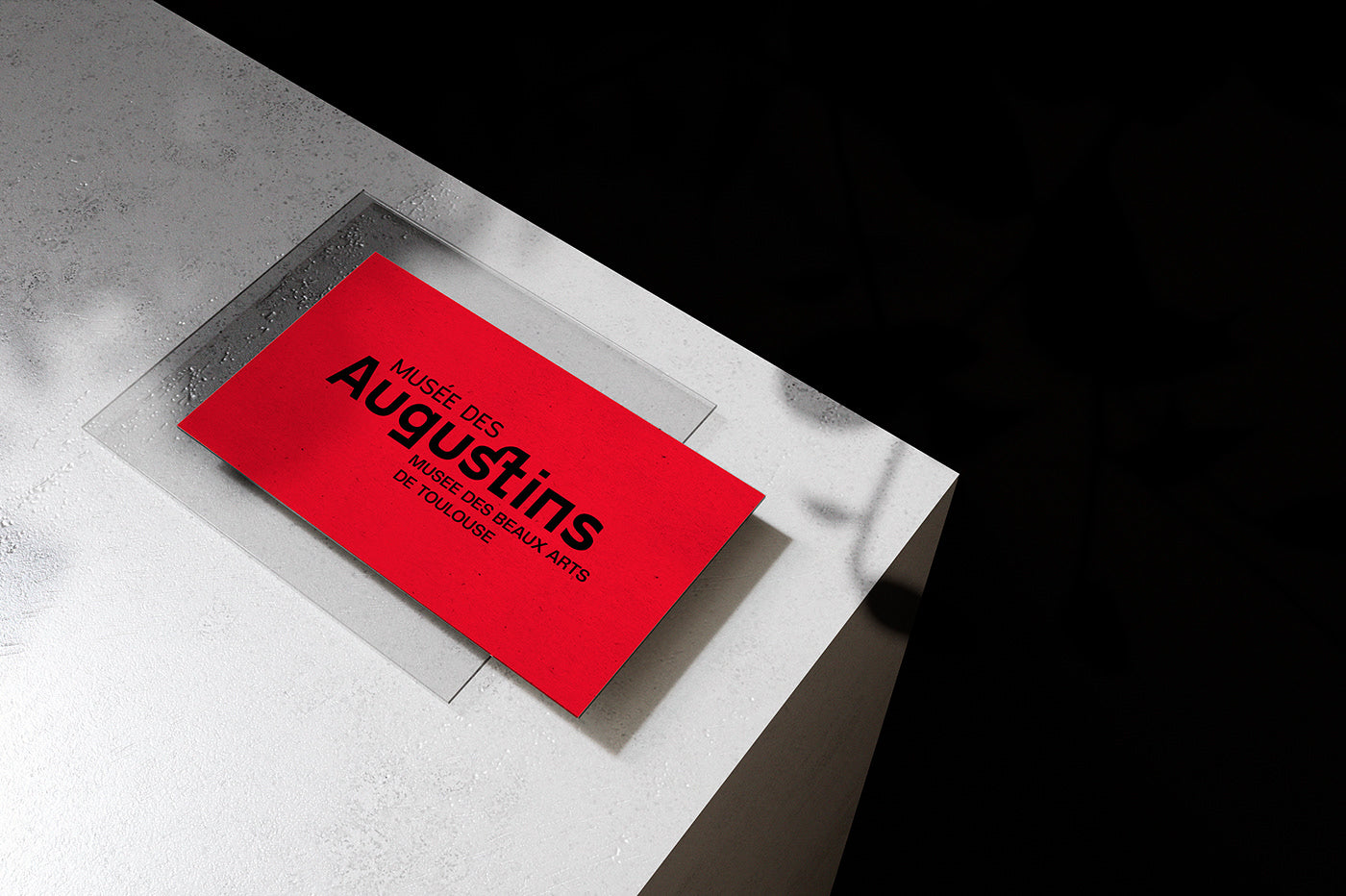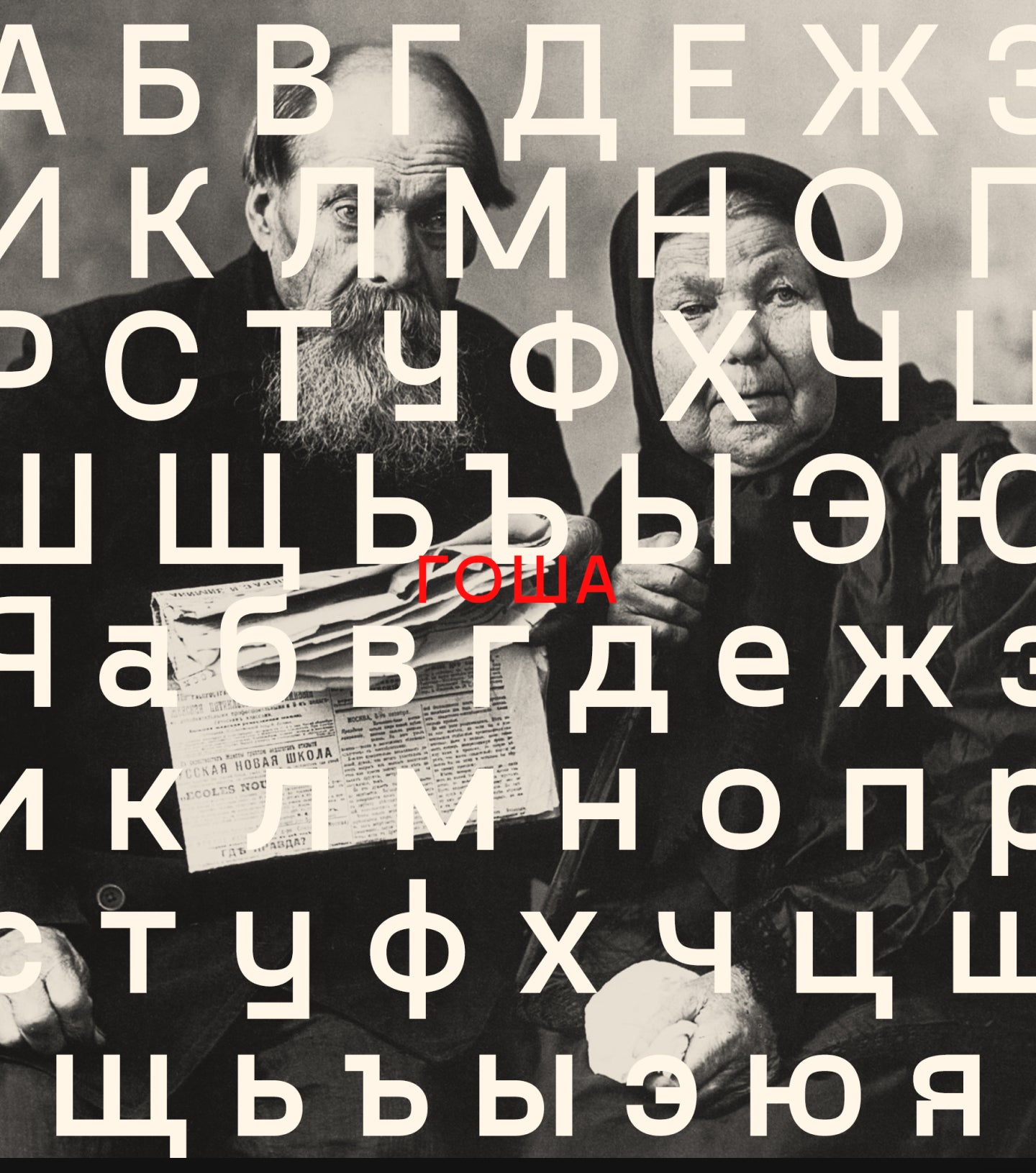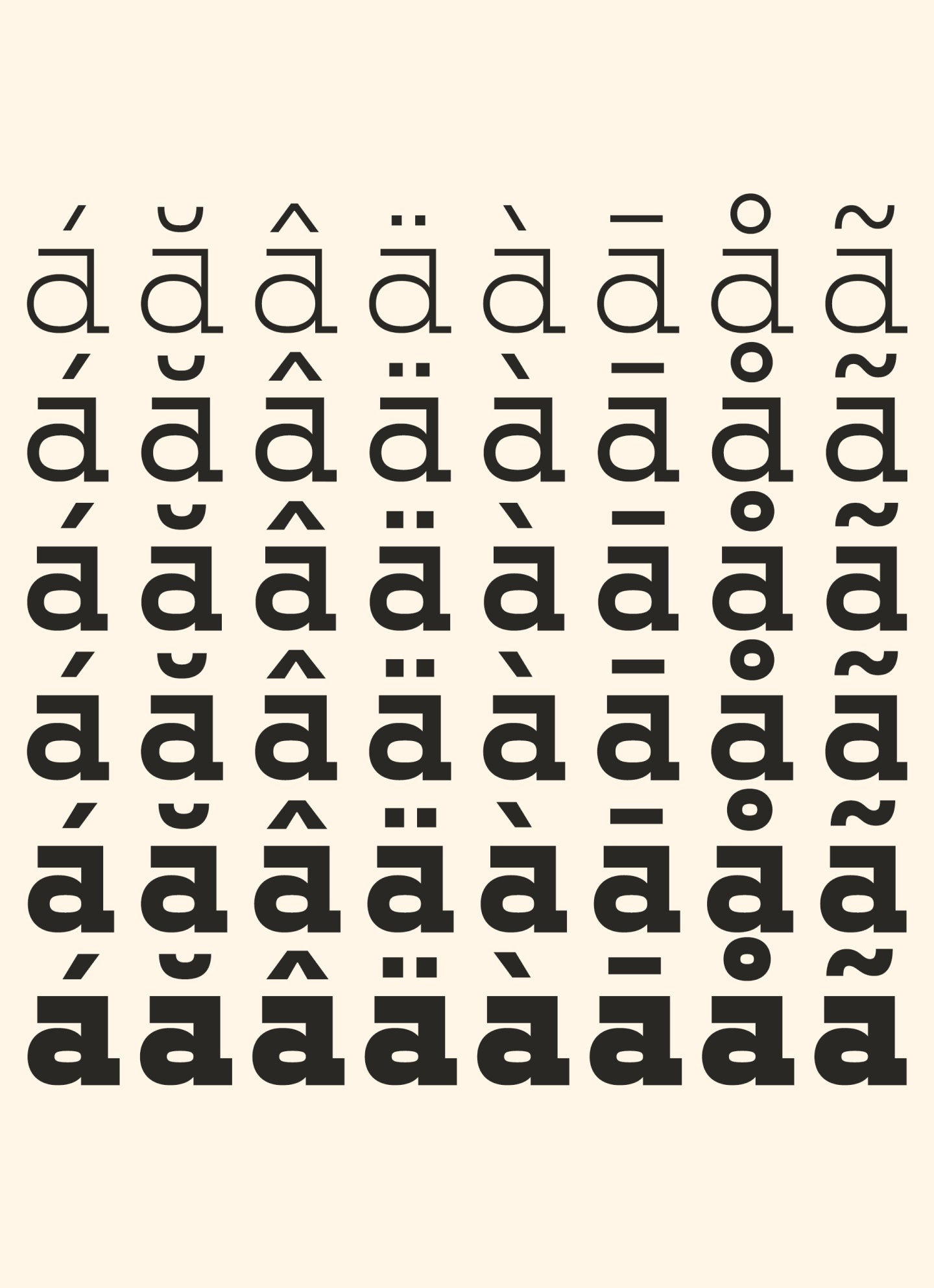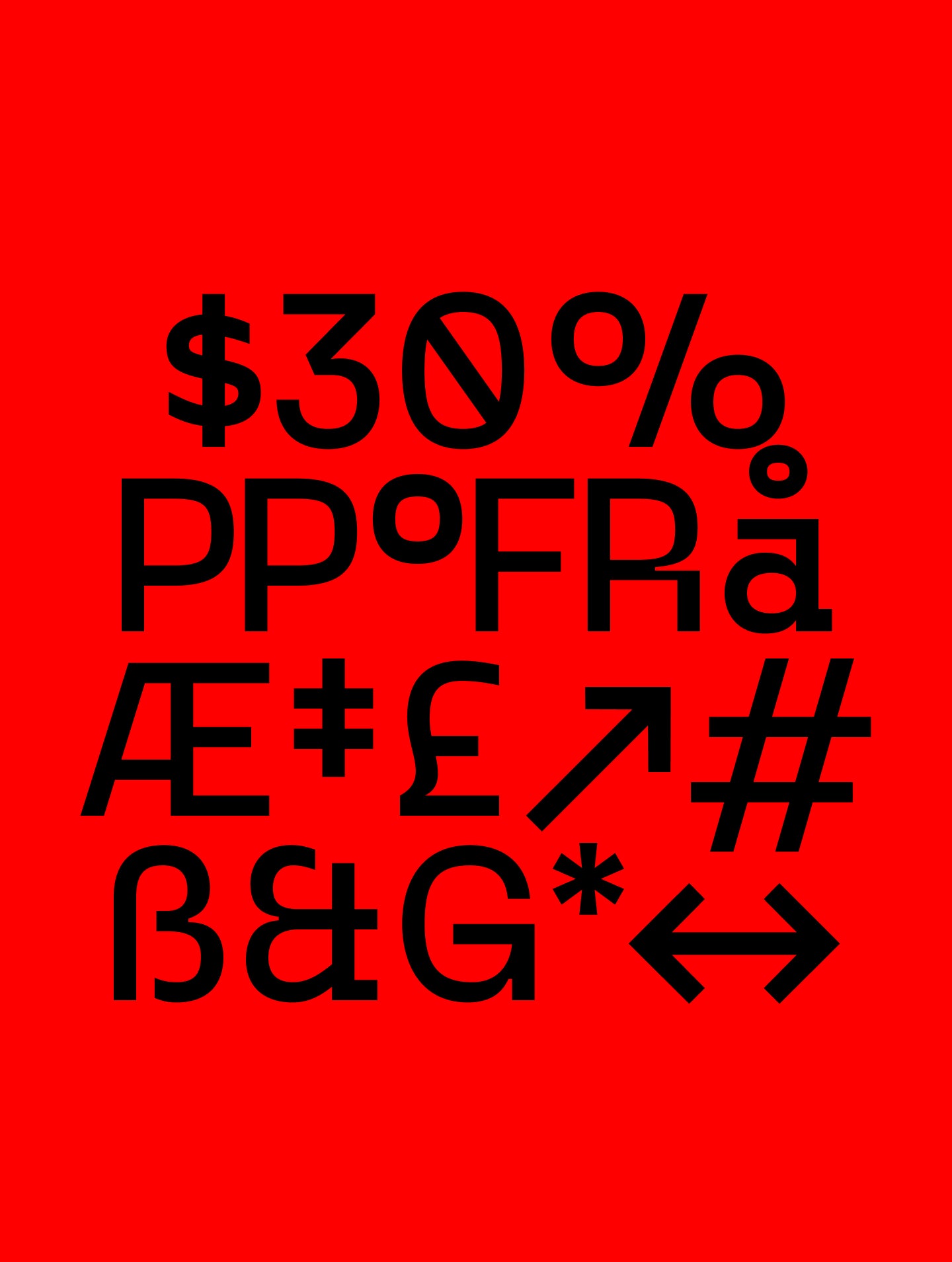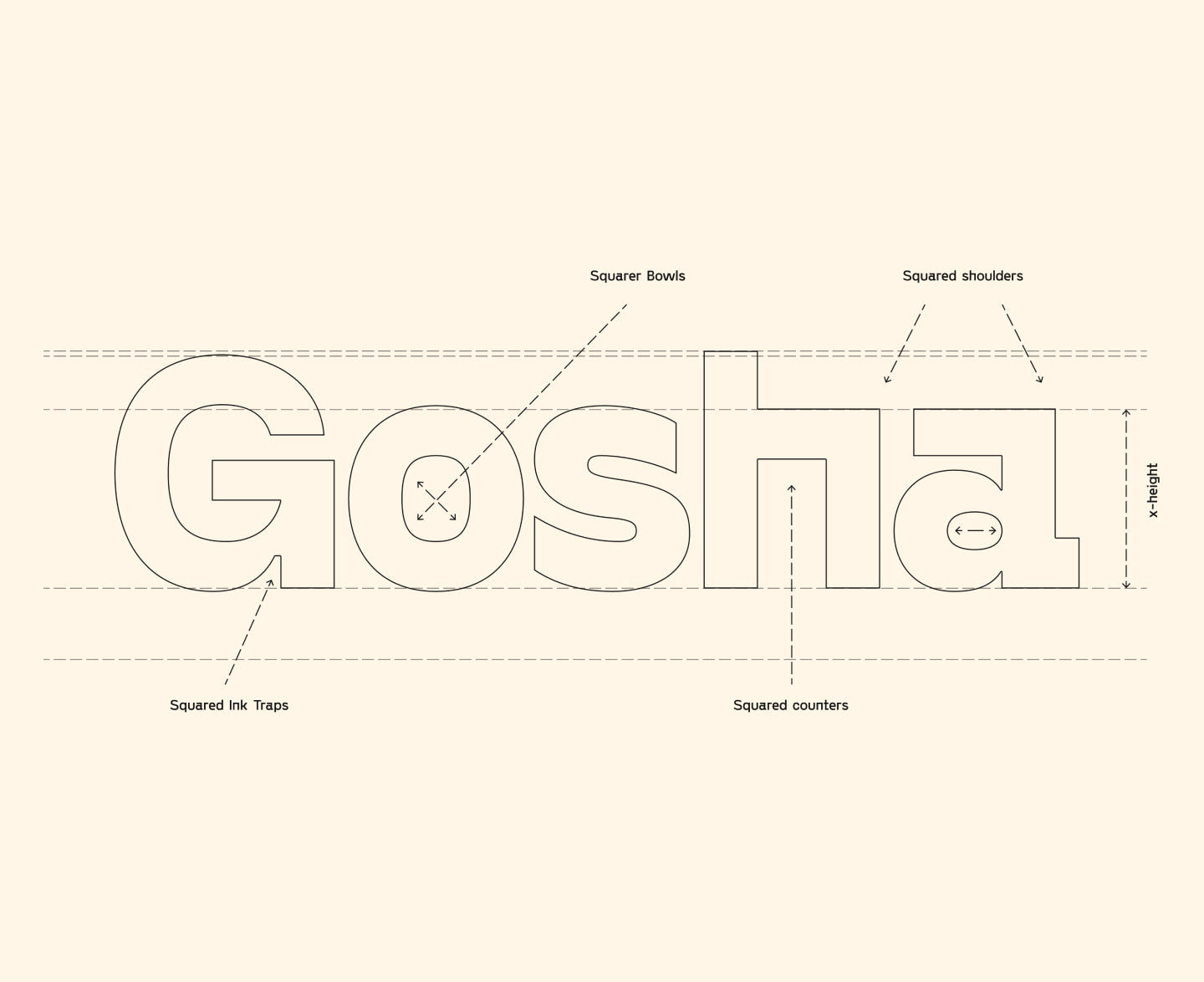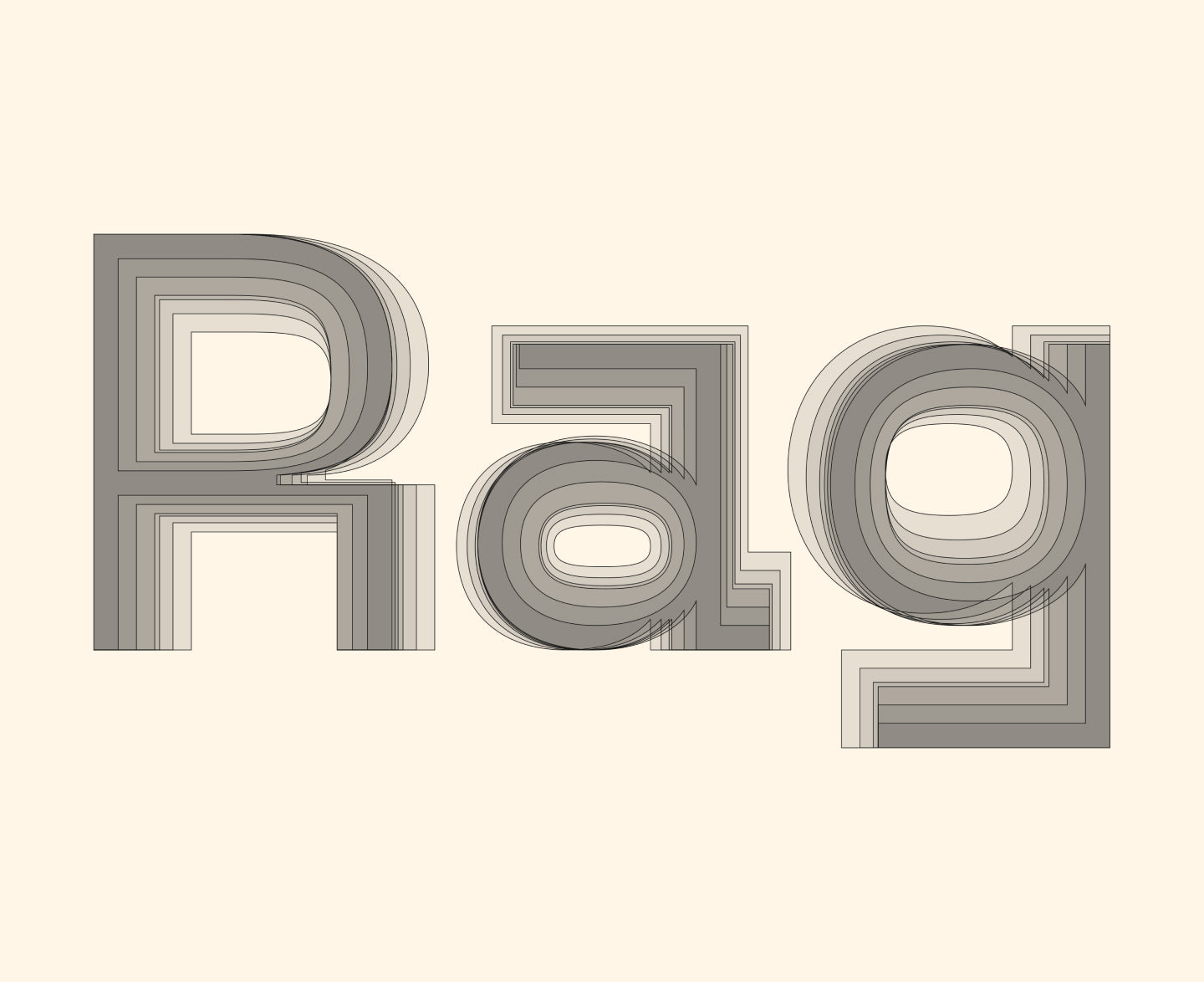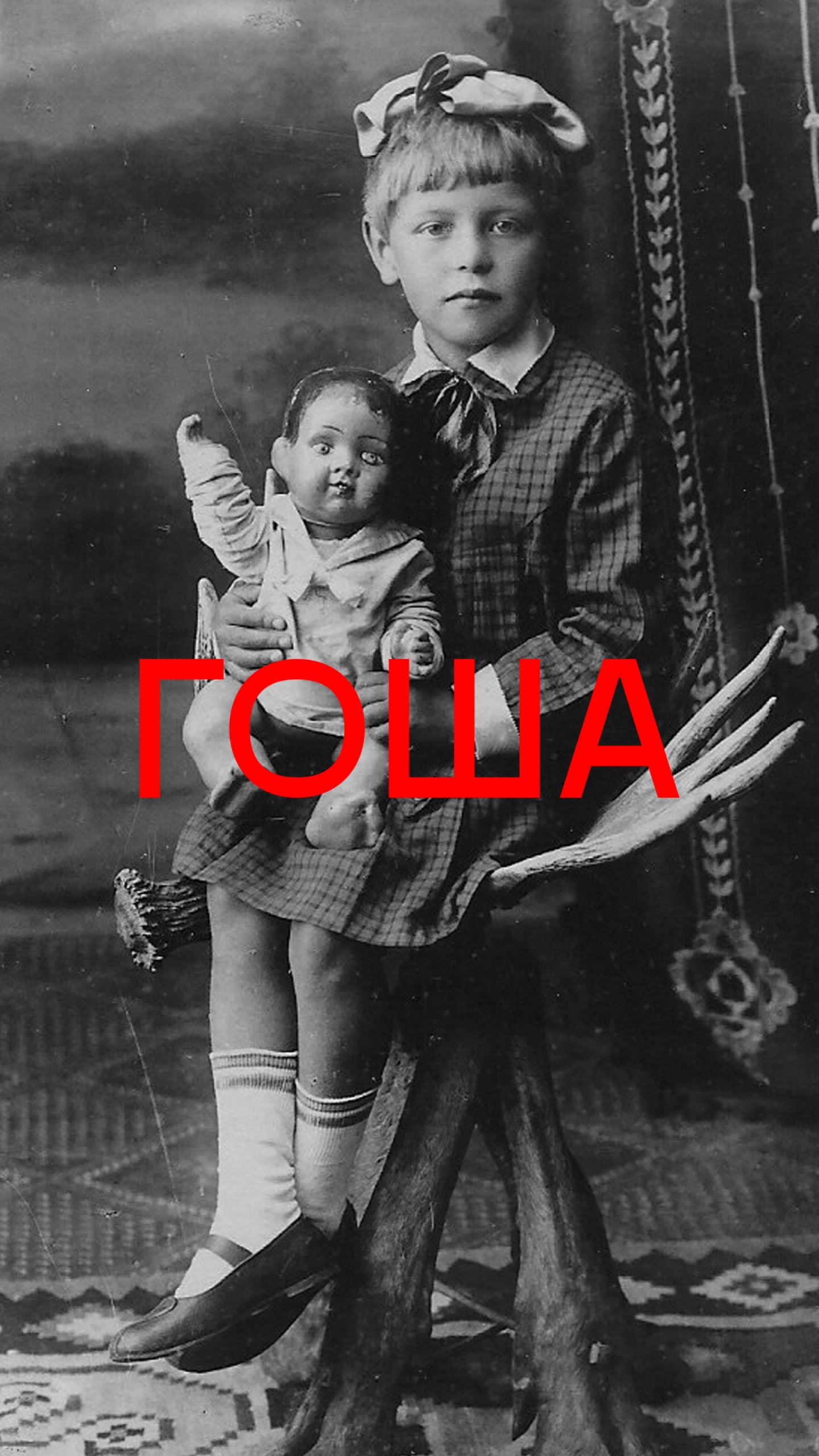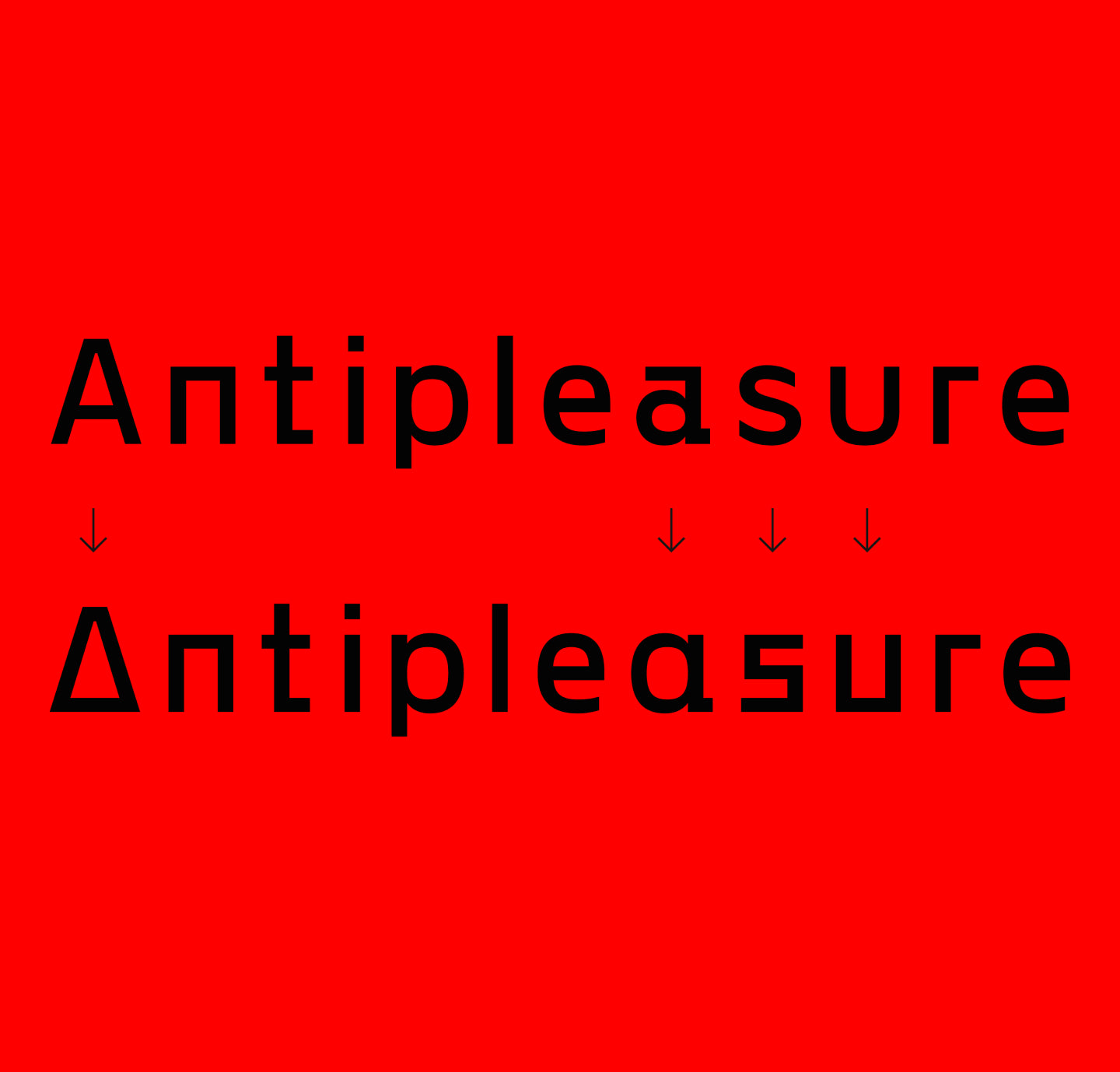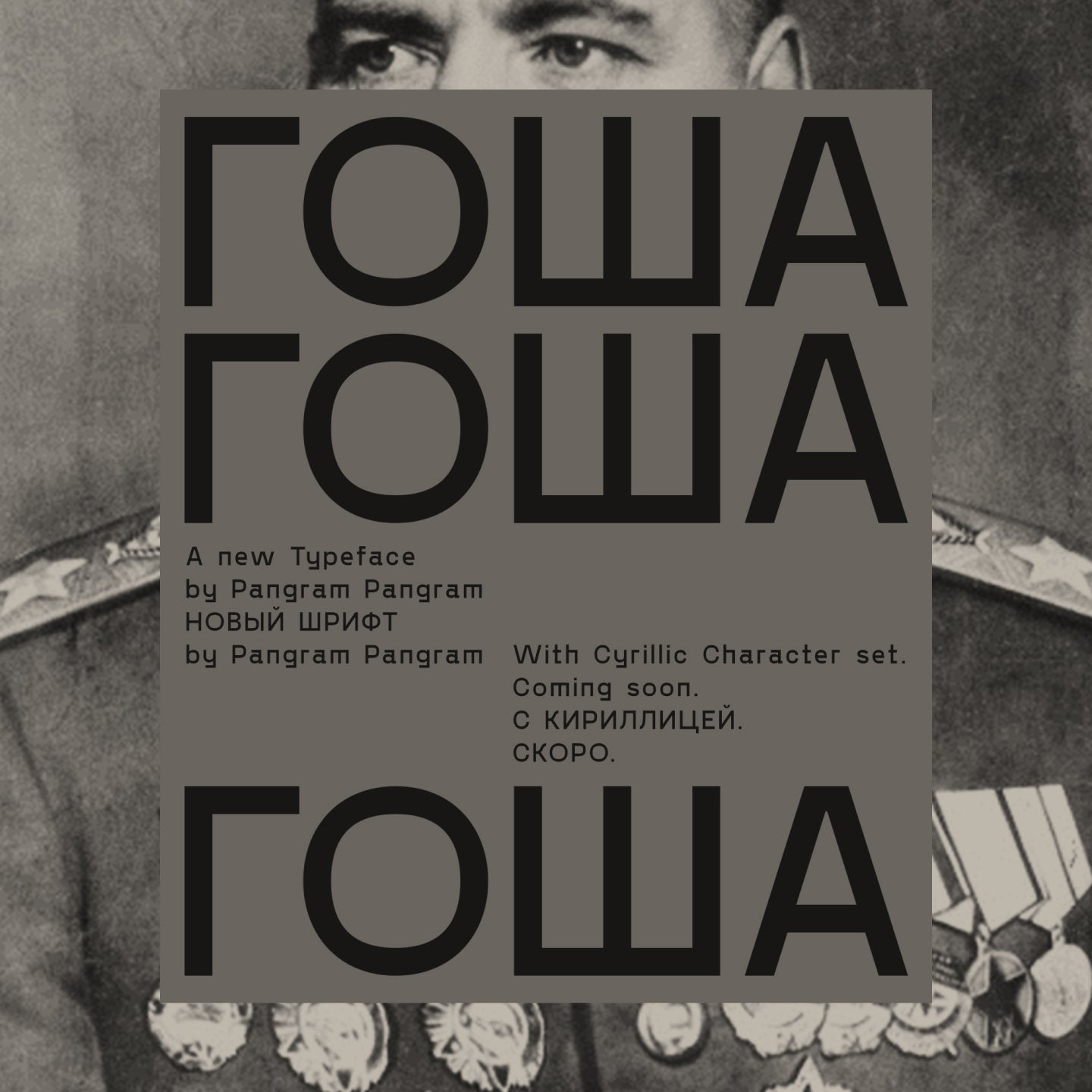
Gosha Sans
Gosha Sans is a bold and character-rich sans serif typeface inspired by vintage Eastern European and Russian design aesthetics.
Eastern edge. Global strength.
Inspired by vintage Eastern European / Russian currents and trends, Gosha Sans is a strong & versatile Sans with great character. Its strong lines and hard corners gives it a lot of personality without compromising legibility at small sizes.
Make sure to explore it's alternates to give your designs an even more brutalist touch.
Including Cyrillic Support